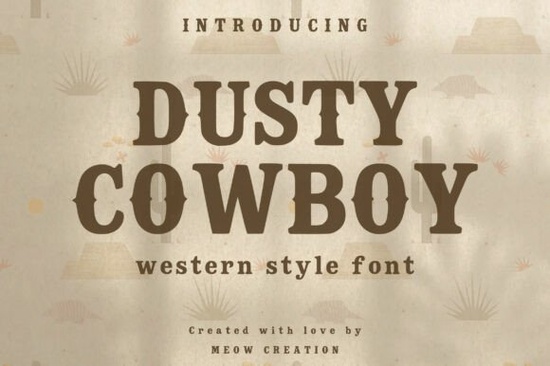
Dusty Cowboy is a rugged Western-inspired display font that brings bold, vintage lettering and authentic pioneer character to any project. Whether you are designing a rodeo poster, a country wedding invitation, or a t-shirt for your print-on-demand shop, this typeface combines sturdy readability with classic Wild West charm. The thick strokes and slightly rough edges give it that hand-painted saloon sign feel, making it a reliable choice for logos, signage, and apparel.
What kind of projects work best with Dusty Cowboy?
This font shines anywhere you want to evoke the spirit of the frontier. Think about:
Event posters for rodeos, county fairs, or barn dances
Merchandise like tumblers, hats, and leather goods
Branding for Western-themed restaurants, bars, or boutiques
Invitations for country-style weddings, birthdays, or baby showers
Signage for farms, ranches, or rustic home decor
The font stays legible even at large sizes, which is important for banners and storefronts. At smaller sizes it still holds its rugged personality without becoming muddy.
How can I pair Dusty Cowboy with other design elements?
Because Dusty Cowboy is already bold and detailed, keep supporting typography simple. A clean sans-serif like Helvetica or a lightweight script works well for body copy. For illustrations, use wood textures, distressed backgrounds, or leather patterns to reinforce the rustic feel.
You can also layer the font with badges, banners, or rope borders to create a complete cowboy aesthetic. Print‑on‑demand sellers often combine it with vintage sunbursts or arrow shapes to make eye-catching t‑shirt designs.
Once you have Dusty Cowboy, try using it in a mockup with a distressed paper texture and a simple two‑color palette. That alone will give your projects that authentic frontier look without extra effort.